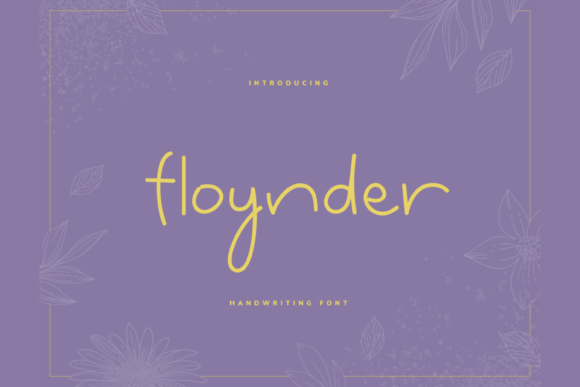
Behold the Floynder Font: A Whimsical Handwritten Masterpiece to Infuse Joy into Your Designs
In a digital world saturated with uniformity, the Floynder Font emerges as a breath of fresh air, a font crafted with a human touch that sparks imagination and ignites creativity. Picture a font that's as playful as a child's laughter, as charming as a handwritten love letter, and as unique as your own fingerprint. Floynder Font is that and much more.
Crafted by the skilled hands of inferno.type3, Floynder Font belongs to the illustrious script font family, a group of fonts known for their elegance, artistry, and ability to evoke emotion. With its playful curves, whimsical strokes, and a hint of quirkiness, Floynder Font stands out from the crowd, ready to infuse your designs with an infectious energy that's sure to captivate your audience.
Whether you're a seasoned designer or just starting your creative journey, Floynder Font is the perfect companion for adding a touch of delight to your projects. Its unpretentious charm lends itself effortlessly to a wide range of design applications, from website interfaces to eye-catching logos, from social media posts to heartfelt invitations. Imagine the possibilities:
- Create a website that exudes warmth and personality, where visitors feel like they're interacting with a friend rather than a faceless corporation.
- Design a logo that reflects your brand's playful spirit, a logo that invites customers to engage with your business on a deeper level.
- Craft social media posts that pop off the screen, capturing the attention of your followers and leaving them wanting more.
- Create invitations for special occasions that are as unique and memorable as the events themselves, invitations that hint at the joy and laughter to come.
With Floynder Font, the creative possibilities are endless. Its versatility knows no bounds, adapting seamlessly to a myriad of design styles and themes. From whimsical illustrations to elegant typography, Floynder Font blends effortlessly, adding a touch of magic to every project it graces.
So, if you're ready to infuse your designs with a dose of happiness, to create projects that resonate with your audience on a deeper level, then Floynder Font is the font for you. Its playful spirit and captivating charm will transform your designs into works of art that evoke smiles and leave a lasting impression. Embrace the joy of Floynder Font today and watch as your creativity takes flight.